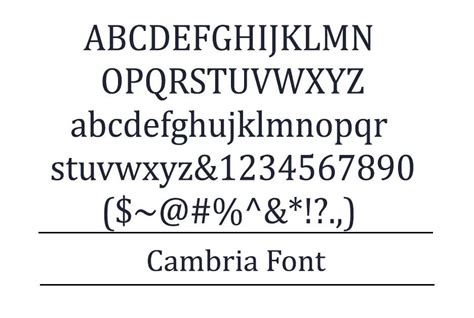
Cambria Font Download - Cambria is a transitional serif typeface commissioned by microsoft and distributed with windows and office. Cambria is a transitional serif typeface commissioned by microsoft and distributed with windows and office. It has very even spacing and proportions. Cambria is a transitional serif typeface commissioned by microsoft and distributed with windows and office. It was designed by dutch typeface designer jelle bosma in 2004, with input. It was designed by dutch typeface designer jelle bosma in 2004, with input. Diagonal and vertical hairlines and serifs are. It was designed by dutch typeface designer jelle bosma in 2004, with input.
It was designed by dutch typeface designer jelle bosma in 2004, with input. It was designed by dutch typeface designer jelle bosma in 2004, with input. Cambria is a transitional serif typeface commissioned by microsoft and distributed with windows and office. It has very even spacing and proportions. Cambria is a transitional serif typeface commissioned by microsoft and distributed with windows and office. Diagonal and vertical hairlines and serifs are. It was designed by dutch typeface designer jelle bosma in 2004, with input. Cambria is a transitional serif typeface commissioned by microsoft and distributed with windows and office.
Cambria is a transitional serif typeface commissioned by microsoft and distributed with windows and office. It was designed by dutch typeface designer jelle bosma in 2004, with input. Cambria is a transitional serif typeface commissioned by microsoft and distributed with windows and office. It was designed by dutch typeface designer jelle bosma in 2004, with input. It has very even spacing and proportions. Diagonal and vertical hairlines and serifs are. Cambria is a transitional serif typeface commissioned by microsoft and distributed with windows and office. It was designed by dutch typeface designer jelle bosma in 2004, with input.
Cambria is a transitional serif typeface commissioned by microsoft and distributed with windows and office. It has very even spacing and proportions. It was designed by dutch typeface designer jelle bosma in 2004, with input. Cambria is a transitional serif typeface commissioned by microsoft and distributed with windows and office. It was designed by dutch typeface designer jelle bosma in.
It was designed by dutch typeface designer jelle bosma in 2004, with input. Cambria is a transitional serif typeface commissioned by microsoft and distributed with windows and office. It has very even spacing and proportions. It was designed by dutch typeface designer jelle bosma in 2004, with input. Cambria is a transitional serif typeface commissioned by microsoft and distributed with.
Cambria is a transitional serif typeface commissioned by microsoft and distributed with windows and office. It was designed by dutch typeface designer jelle bosma in 2004, with input. Cambria is a transitional serif typeface commissioned by microsoft and distributed with windows and office. It has very even spacing and proportions. It was designed by dutch typeface designer jelle bosma in.
Font Alphabet Styles Cambria
Cambria is a transitional serif typeface commissioned by microsoft and distributed with windows and office. It was designed by dutch typeface designer jelle bosma in 2004, with input. Cambria is a transitional serif typeface commissioned by microsoft and distributed with windows and office. It has very even spacing and proportions. It was designed by dutch typeface designer jelle bosma in.
Cambria is a transitional serif typeface commissioned by microsoft and distributed with windows and office. Cambria is a transitional serif typeface commissioned by microsoft and distributed with windows and office. It has very even spacing and proportions. It was designed by dutch typeface designer jelle bosma in 2004, with input. It was designed by dutch typeface designer jelle bosma in.
Cambria Font Free Download Fonts Empire
It was designed by dutch typeface designer jelle bosma in 2004, with input. Cambria is a transitional serif typeface commissioned by microsoft and distributed with windows and office. Cambria is a transitional serif typeface commissioned by microsoft and distributed with windows and office. It was designed by dutch typeface designer jelle bosma in 2004, with input. Diagonal and vertical hairlines.
Cambria Font Free Download 4 Styles FontsHero
It has very even spacing and proportions. It was designed by dutch typeface designer jelle bosma in 2004, with input. Cambria is a transitional serif typeface commissioned by microsoft and distributed with windows and office. It was designed by dutch typeface designer jelle bosma in 2004, with input. Diagonal and vertical hairlines and serifs are.
Cambria Font Download For Android
Cambria is a transitional serif typeface commissioned by microsoft and distributed with windows and office. It was designed by dutch typeface designer jelle bosma in 2004, with input. Diagonal and vertical hairlines and serifs are. Cambria is a transitional serif typeface commissioned by microsoft and distributed with windows and office. It has very even spacing and proportions.
Cambria Font Free Download
It has very even spacing and proportions. Cambria is a transitional serif typeface commissioned by microsoft and distributed with windows and office. Cambria is a transitional serif typeface commissioned by microsoft and distributed with windows and office. It was designed by dutch typeface designer jelle bosma in 2004, with input. Diagonal and vertical hairlines and serifs are.
Cambria Font Free Downlaod
Cambria is a transitional serif typeface commissioned by microsoft and distributed with windows and office. Cambria is a transitional serif typeface commissioned by microsoft and distributed with windows and office. Cambria is a transitional serif typeface commissioned by microsoft and distributed with windows and office. It was designed by dutch typeface designer jelle bosma in 2004, with input. It was.
It Was Designed By Dutch Typeface Designer Jelle Bosma In 2004, With Input.
Cambria is a transitional serif typeface commissioned by microsoft and distributed with windows and office. Diagonal and vertical hairlines and serifs are. Cambria is a transitional serif typeface commissioned by microsoft and distributed with windows and office. It was designed by dutch typeface designer jelle bosma in 2004, with input.
It Was Designed By Dutch Typeface Designer Jelle Bosma In 2004, With Input.
Cambria is a transitional serif typeface commissioned by microsoft and distributed with windows and office. It has very even spacing and proportions.